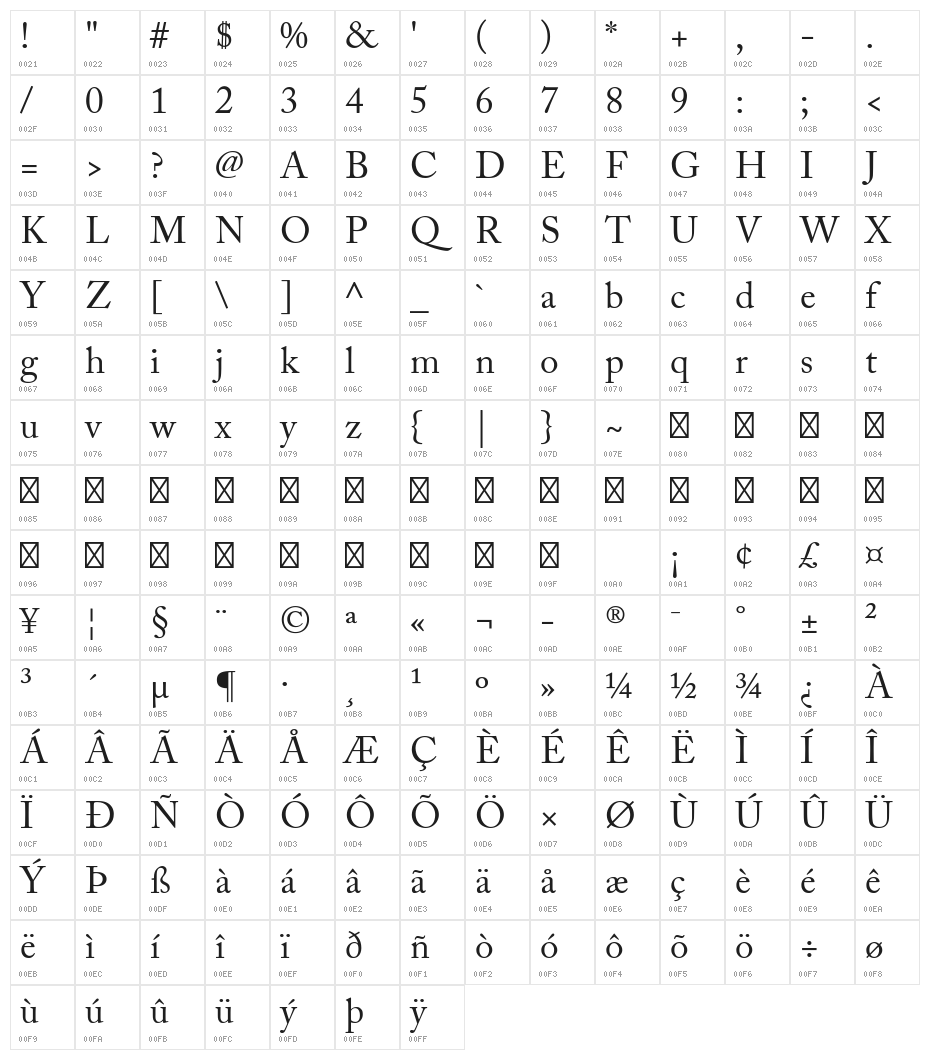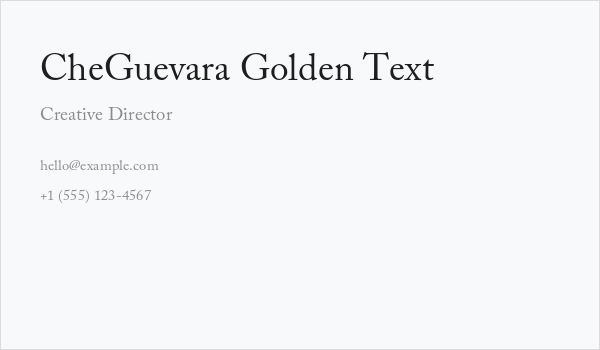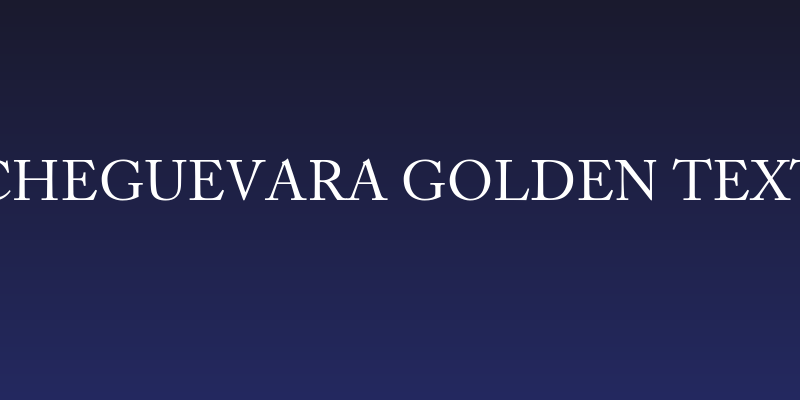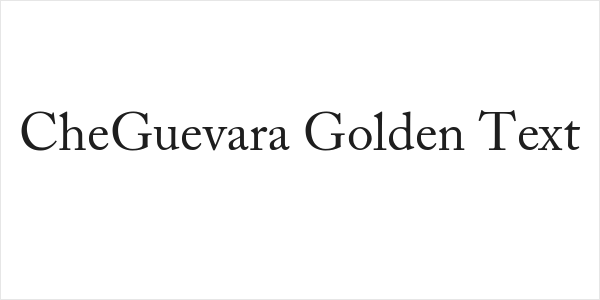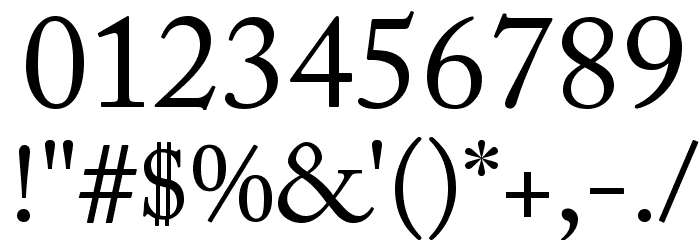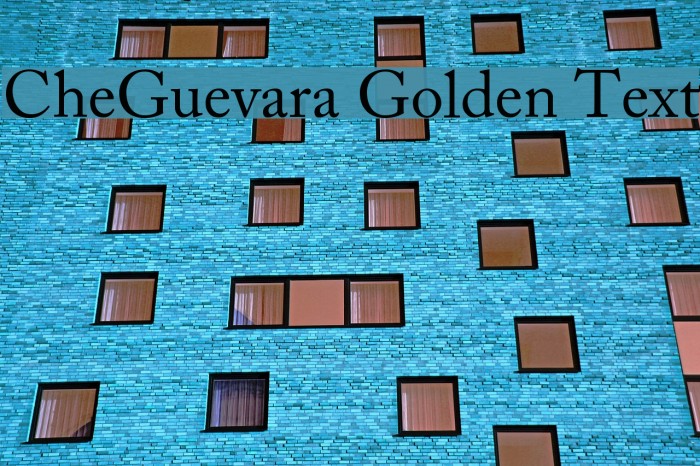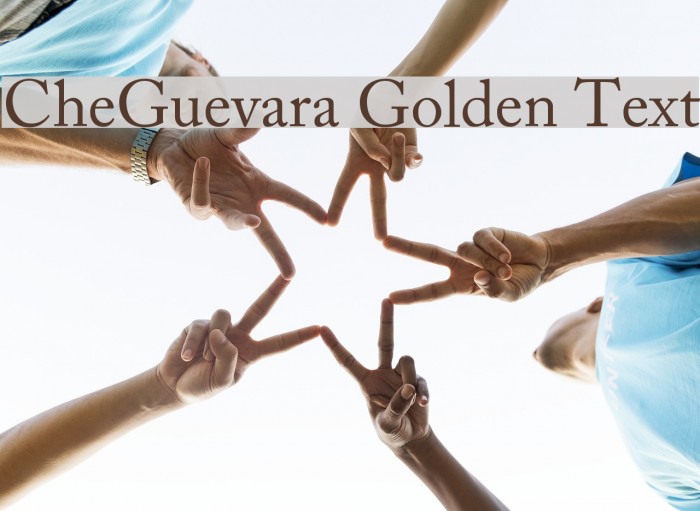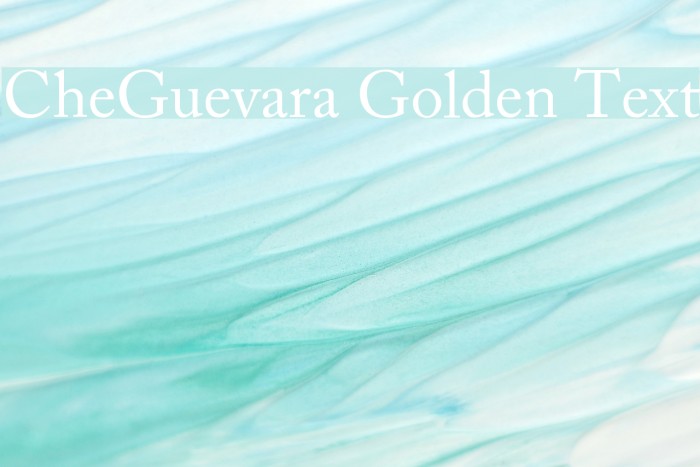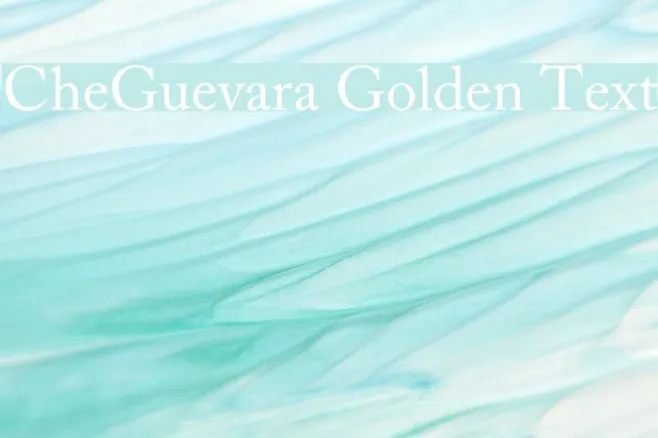
CheGuevara Golden Text Font
CheGuevara Golden Text Description
This font features a classic serif style with elegant, thin strokes and slight variations in line thickness, giving it a sophisticated and timeless appearance. The uppercase letters are tall and stately, while the lowercase letters maintain a balanced and harmonious look. The numerals are clear and easy to read, with a traditional design that complements the overall aesthetic. The special characters are well-integrated, maintaining the font's refined style. This font is versatile, suitable for both formal and creative projects, offering a blend of readability and elegance.
| Proposed Projects | Ideal for book covers, formal invitations, editorial layouts, and branding materials. |